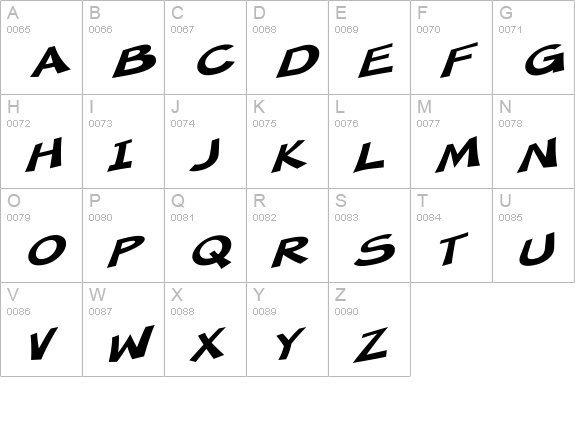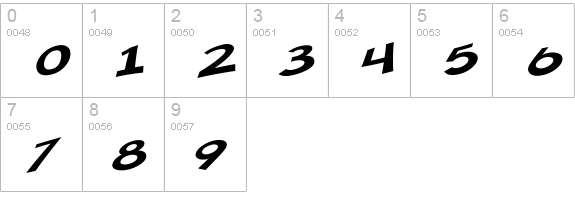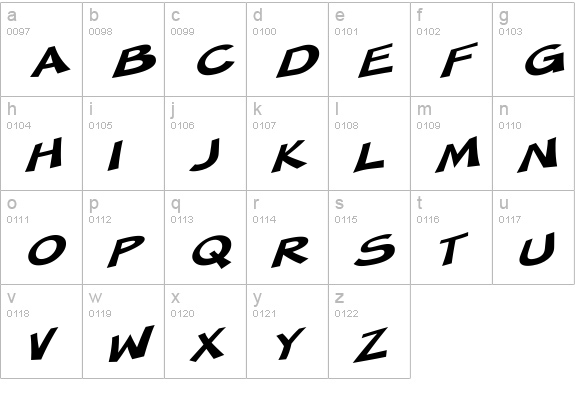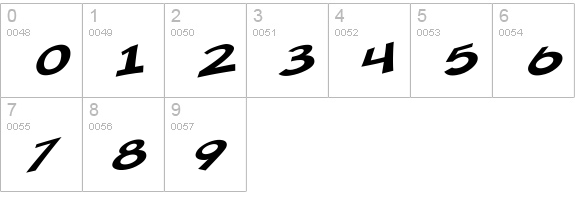
SF Minced Meat Extended Oblique Font Details
SF Minced Meat Extended Oblique is a distinctive, extended-width, italic variant in the SF typeface family \xE2\x80\x94 well suited to design and typography projects.
SF Minced Meat Extended Oblique is a stunning display font that is sure to grab attention with its unique and edgy design. Its oblique slant adds a touch of dynamism and modernity to any project, making it perfect for headlines, posters, and branding materials. With its sharp lines and exaggerated proportions, this font exudes a sense of confidence and boldness. The extended width of SF Minced Meat Extended Oblique allows for maximum impact, making it stand out even from a distance. Each character is meticulously crafted, ensuring crisp and clean lines that create a visually striking effect. Whether you're aiming for a futuristic aesthetic or a gritty urban vibe, this font is guaranteed to deliver. One of the best parts about SF Minced Meat Extended Oblique is that it is freely available to download at FontsMarket.com. This means that you can explore its endless possibilities and incorporate it into your designs without any cost. The accessibility of this font makes it a valuable asset for designers, students, and anyone looking to add a touch of creativity to their projects. Don't miss out on the opportunity to enhance your designs with SF Minced Meat Extended Oblique. Download this font for free at FontsMarket.com and unleash your imagination. With its eye-catching design and ease of use, this font is sure to become a go-to choice for all your creative endeavors.